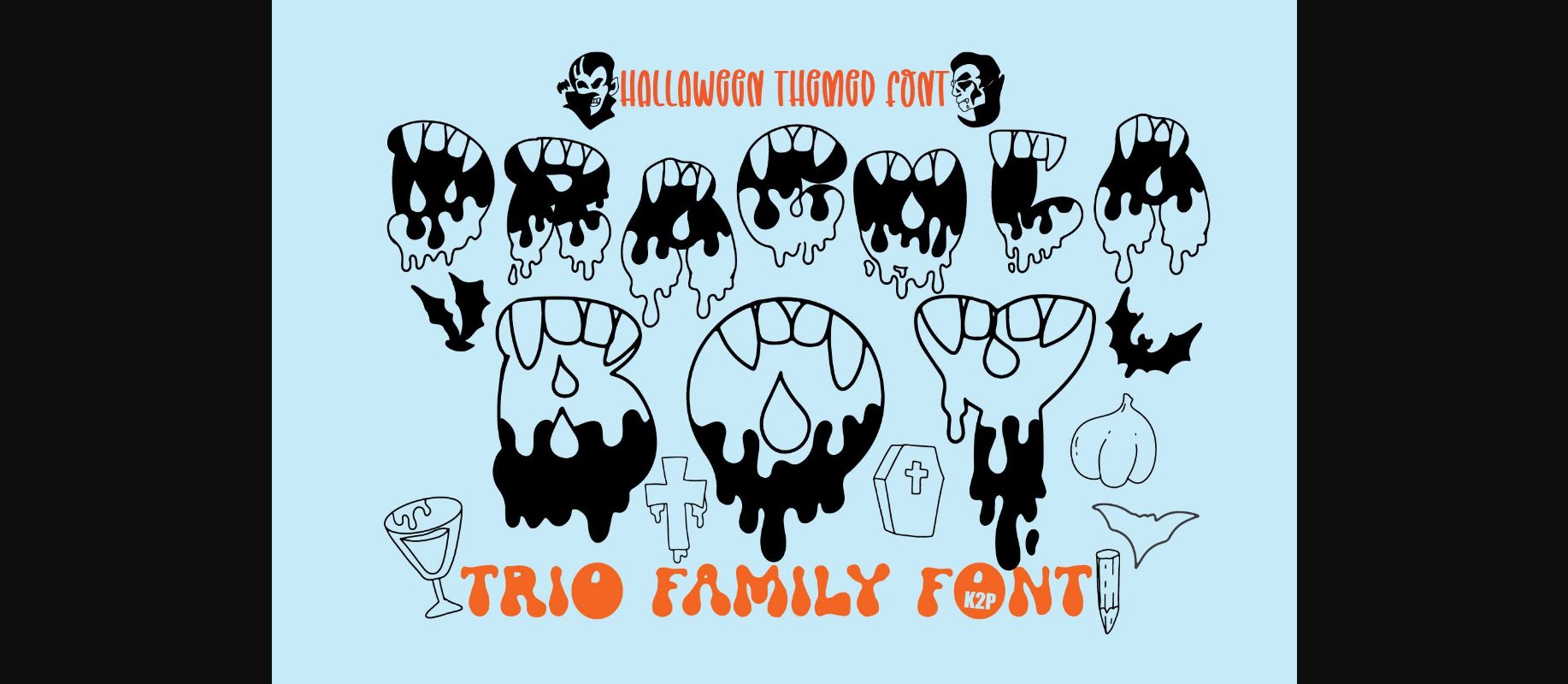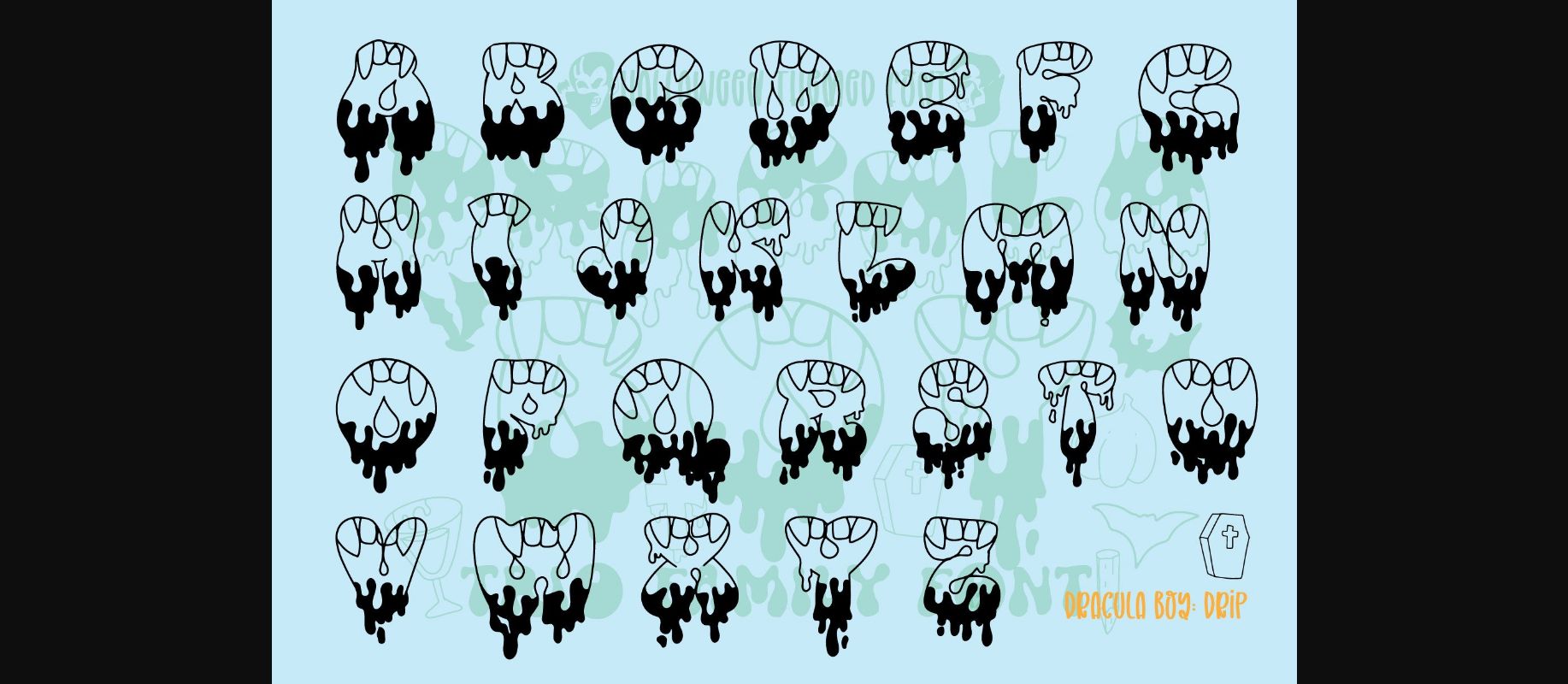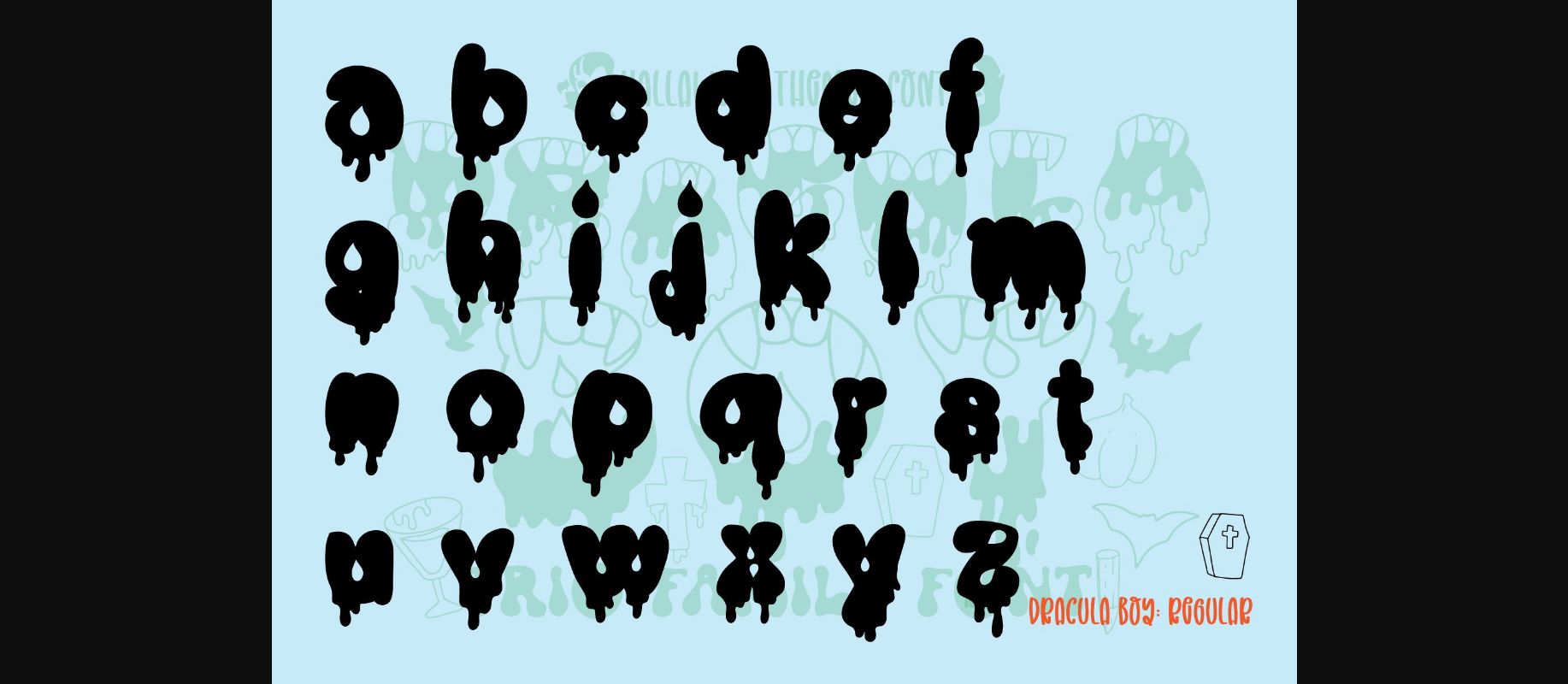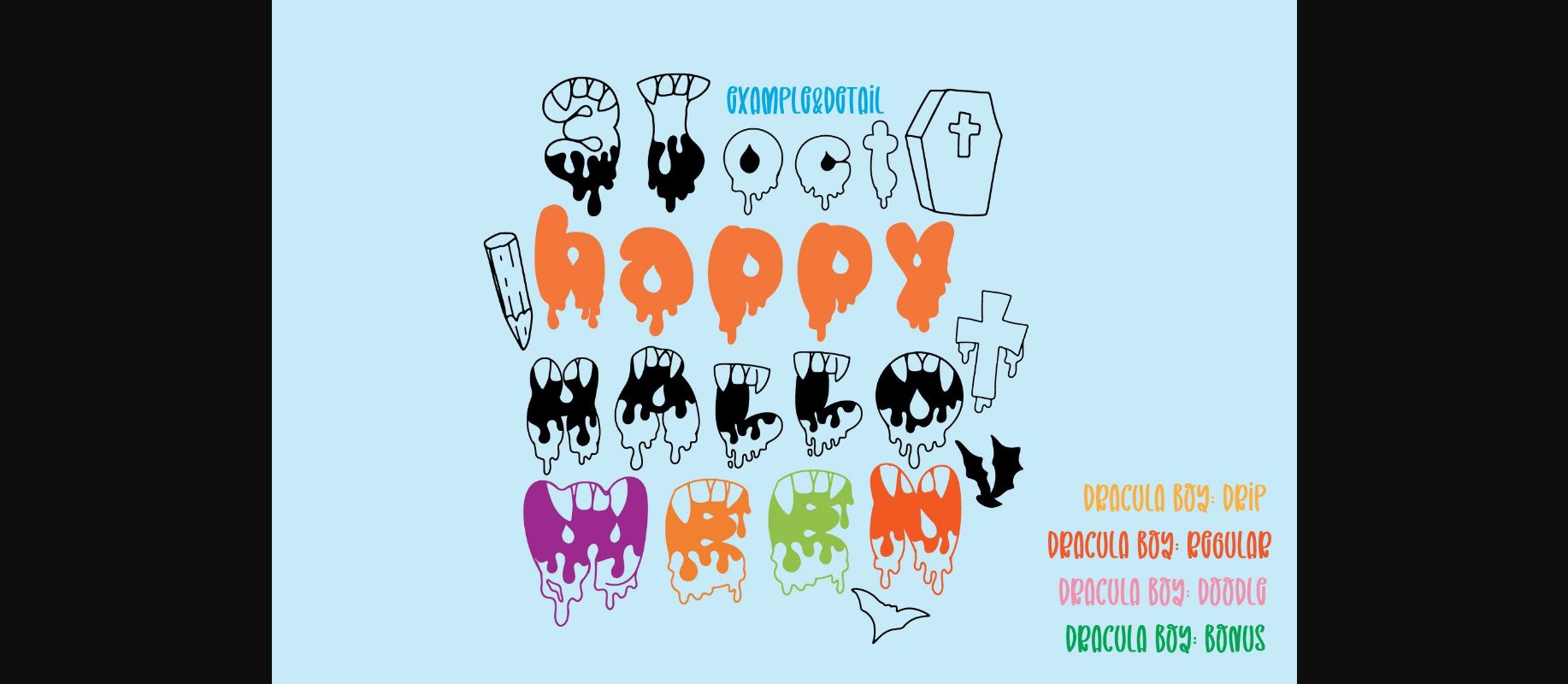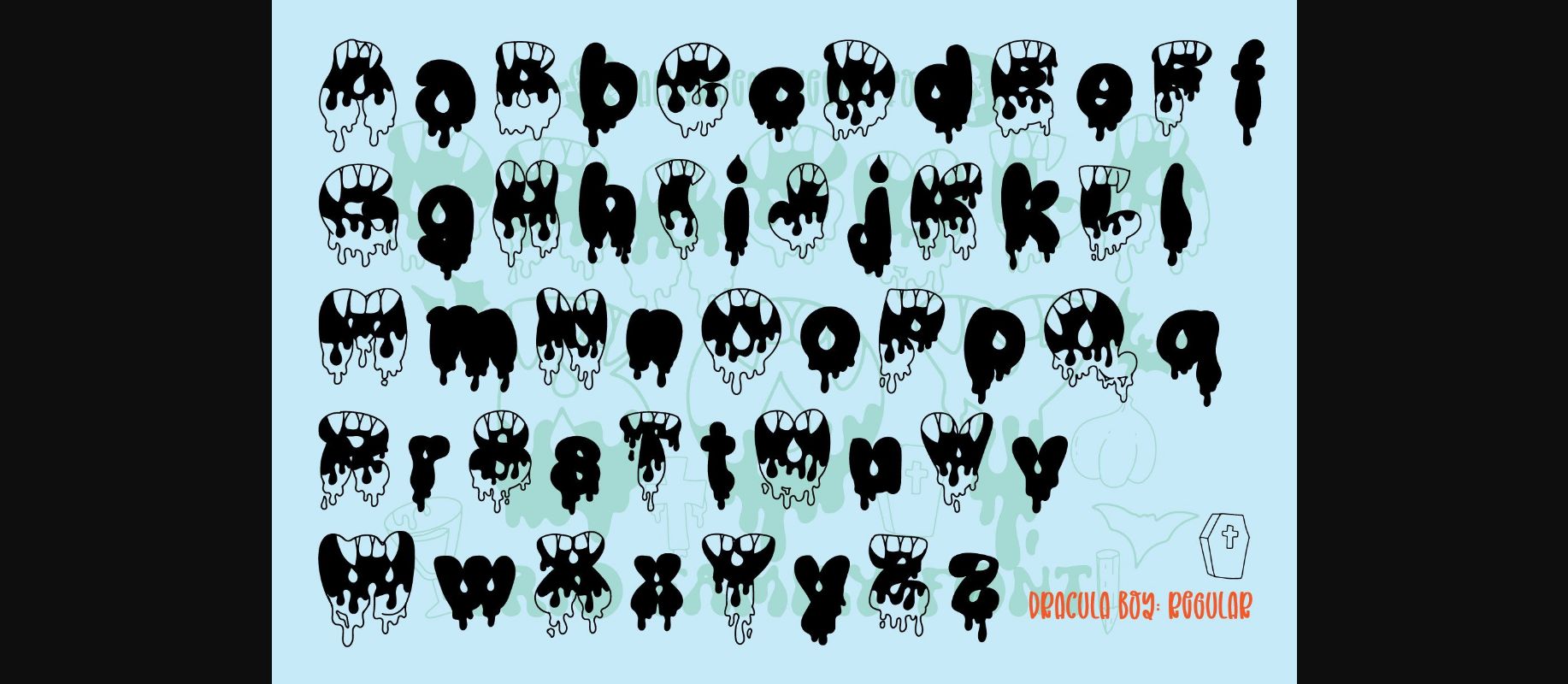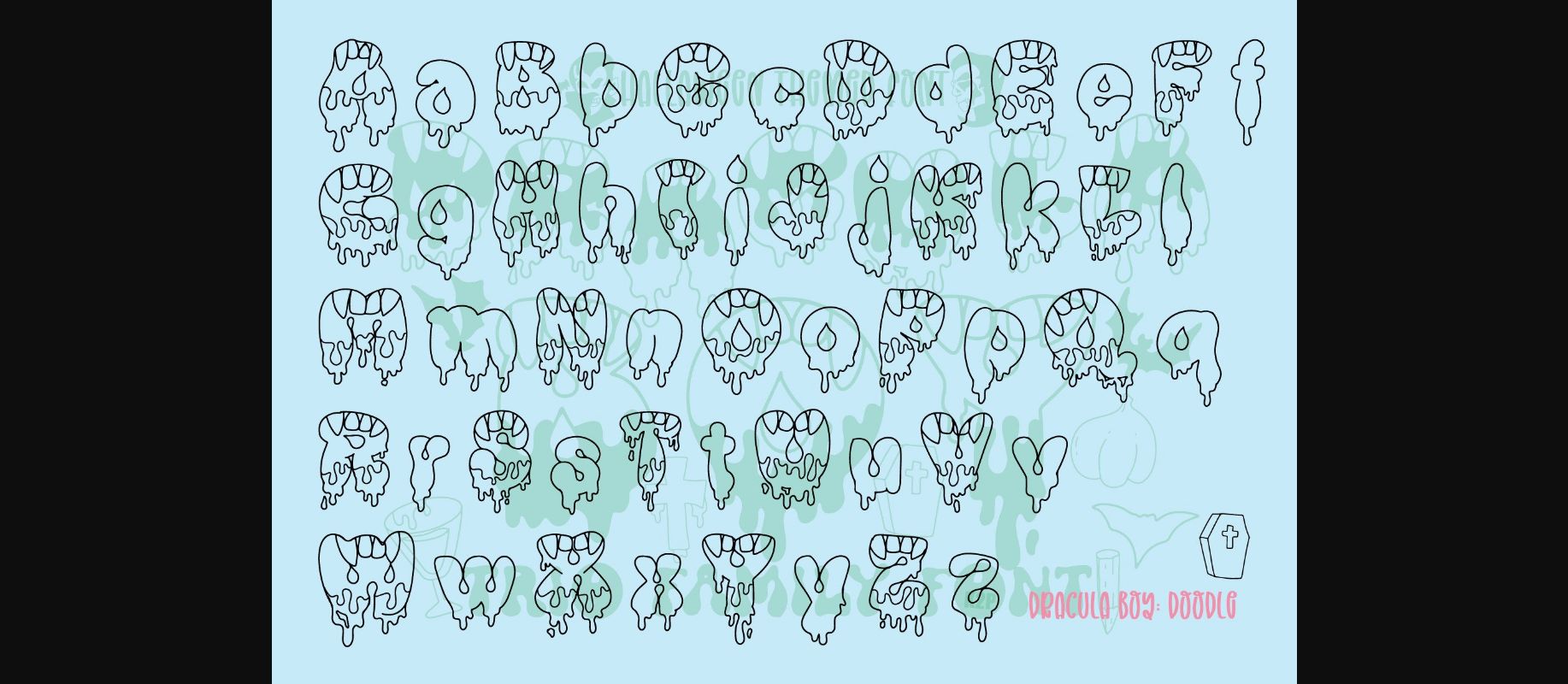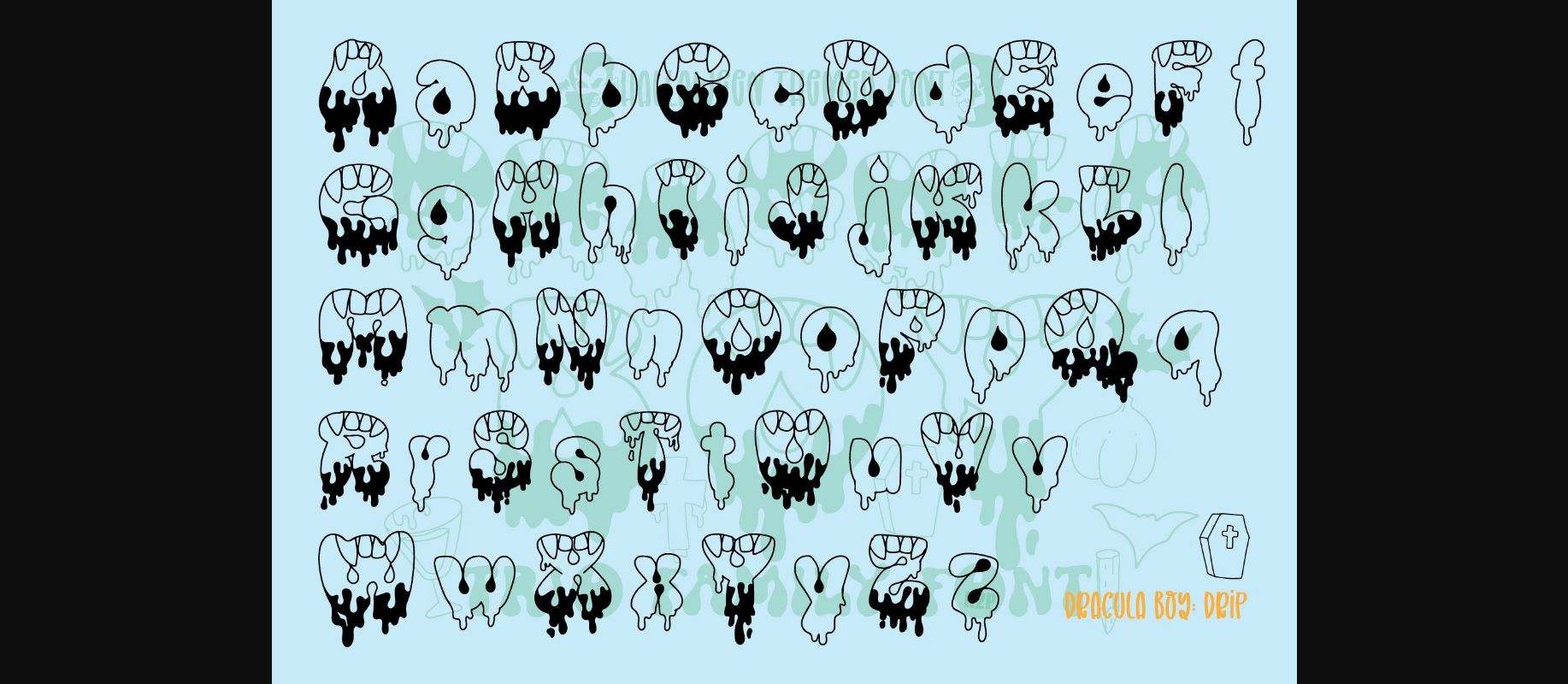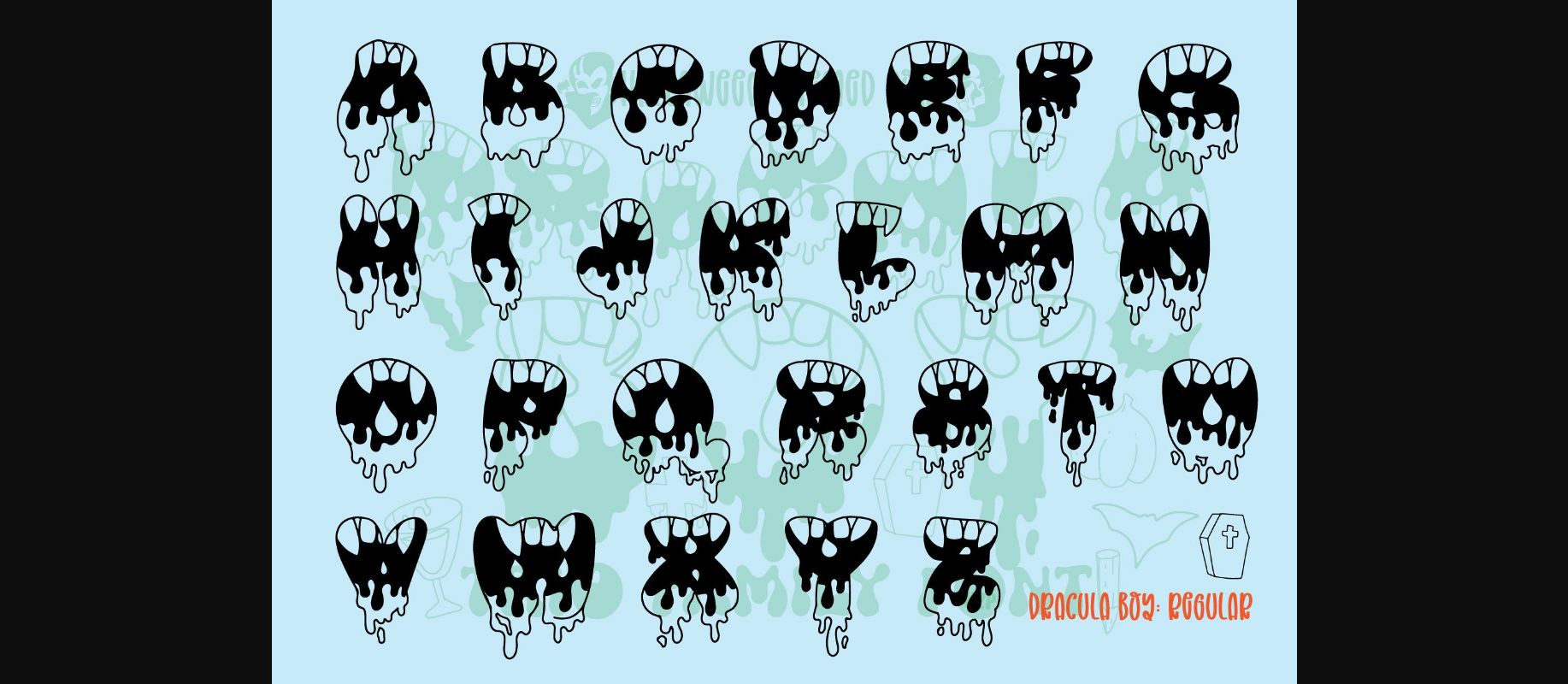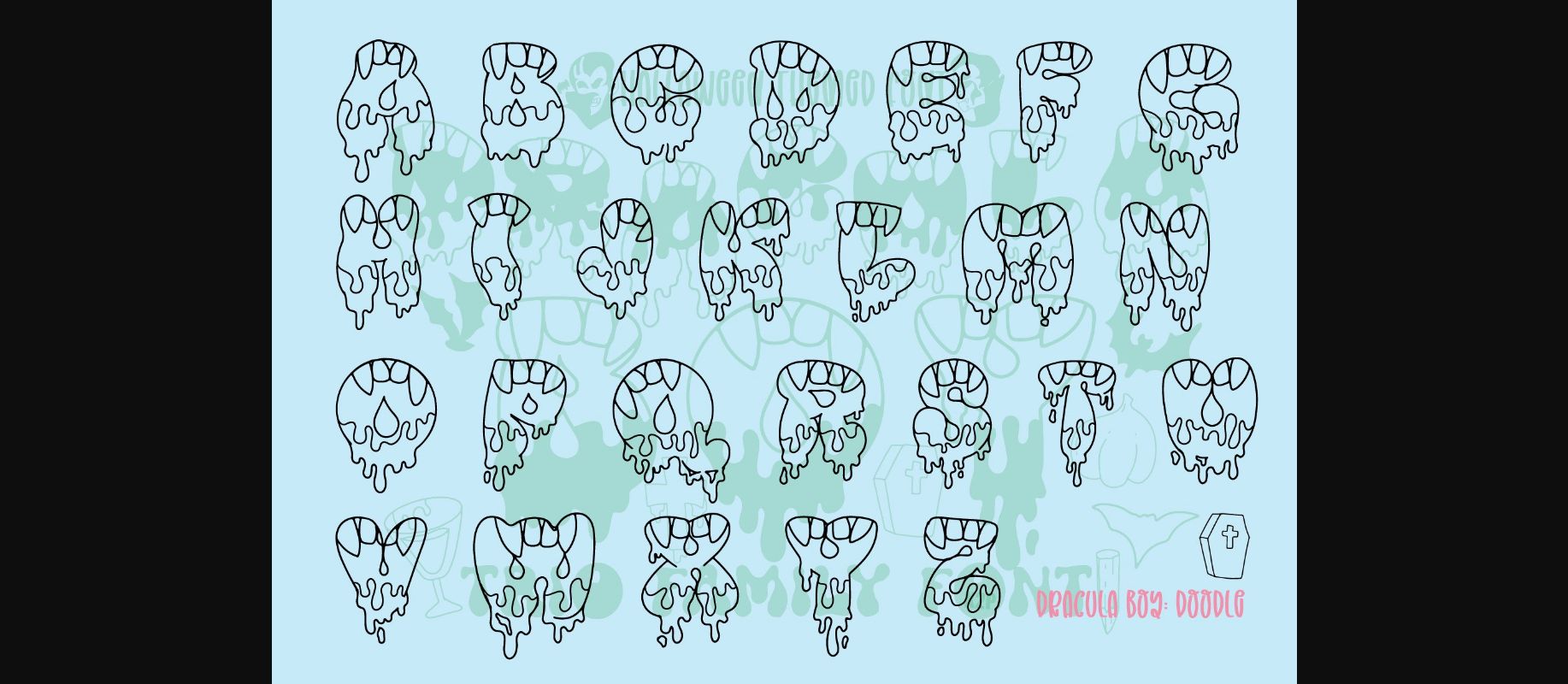
Dracula Boy Font
About Dracula Boy Font
Dracula Boy is a thick-lettered and spooky decorative font. It is perfectly suitable for any Halloween-related project or crafty idea! The only limit is your imagination. This font is PUA encoded, which means you can access all of the glyphs and swashes with ease!